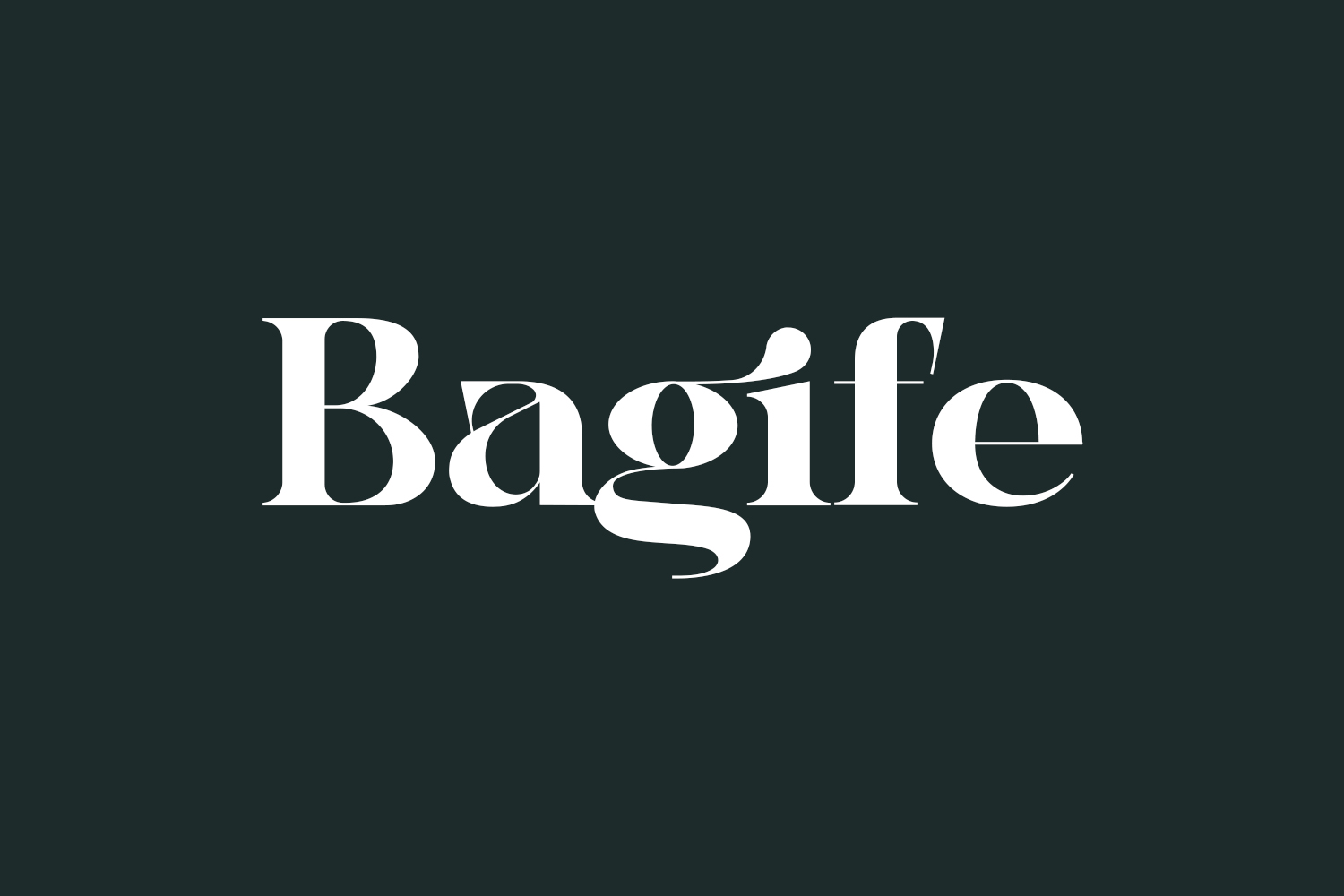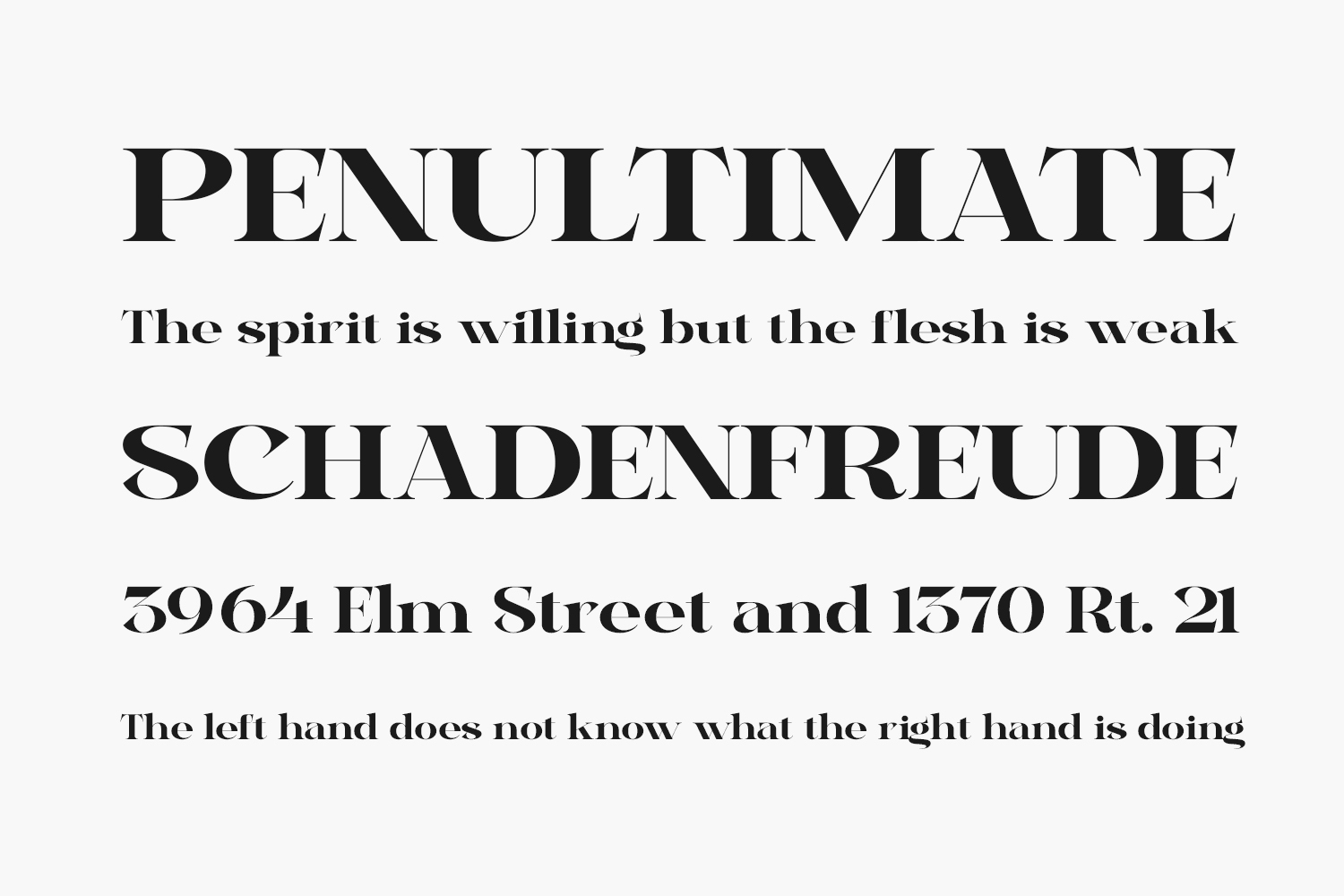
Discover Bagife Free Font, a refined and enchanting serif font infused with a touch of sophistication. Tailor-made for luxurious, elegant, and feminine projects, this font is the perfect choice for crafting contemporary and chic designs. Bagife Free Font is free for personal use only. Please purchase the full version for commercial use.